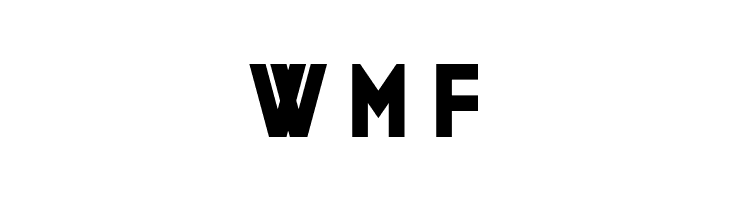
A bold, modern font with a dynamic slashed effect, ideal for energetic branding.
A playful, handwritten font with a whimsical and friendly style.
A bold, blocky font with a strong geometric structure and minimal contrast.
A classic serif font with elegant strokes and moderate contrast, perfect for sophisticated designs.
A modern Devanagari script with clean lines and balanced structure.
A bold, modern font with a unique cut-out style for impactful designs.
A bold, distressed font with a rugged, hand-crafted appearance.
A bold, graffiti-style font with dynamic, hand-drawn strokes.
An elegant, cursive script font with fluid, ornate strokes.
A clean, modern sans-serif font with consistent stroke widths and excellent readability.
A playful, rounded font with whimsical embellishments and a friendly style.
A bold, geometric font with angular lines and a modern, impactful style.
A classic and elegant script font with smooth, flowing characters.
A whimsical script font with heart motifs and decorative flourishes.
A modern, clean sans-serif font with uniform strokes and excellent readability.
A bold, flowing script font with a playful, handwritten style.
A classic serif font with elegant proportions and moderate contrast.
A rounded, bold font with a playful yet professional style.
A playful, modern font with architectural elements and rounded, bold characters.
A playful, whimsical handwritten font with curly strokes and a sketch-like texture.
A playful, bold font with rounded edges and a whimsical style.
A clean and elegant serif font with balanced proportions and smooth curves.
A bold, adventurous font with sharp serifs and a distressed appearance, perfect for pirate-themed projects.
A bold, outlined font with a playful, comic book style.
A playful, handwritten font with dynamic strokes and a whimsical style.
A modern sans-serif font with clean lines and balanced proportions.
A bold, edgy font with sharp angles and a rebellious feel.
A digital-style font with segmented lines, ideal for tech-themed designs.
A playful, bold font with rounded, thick strokes and a cartoonish style.
A bold, geometric font with a futuristic and modern aesthetic.
A playful, elegant cursive font with interconnected characters and artistic flair.